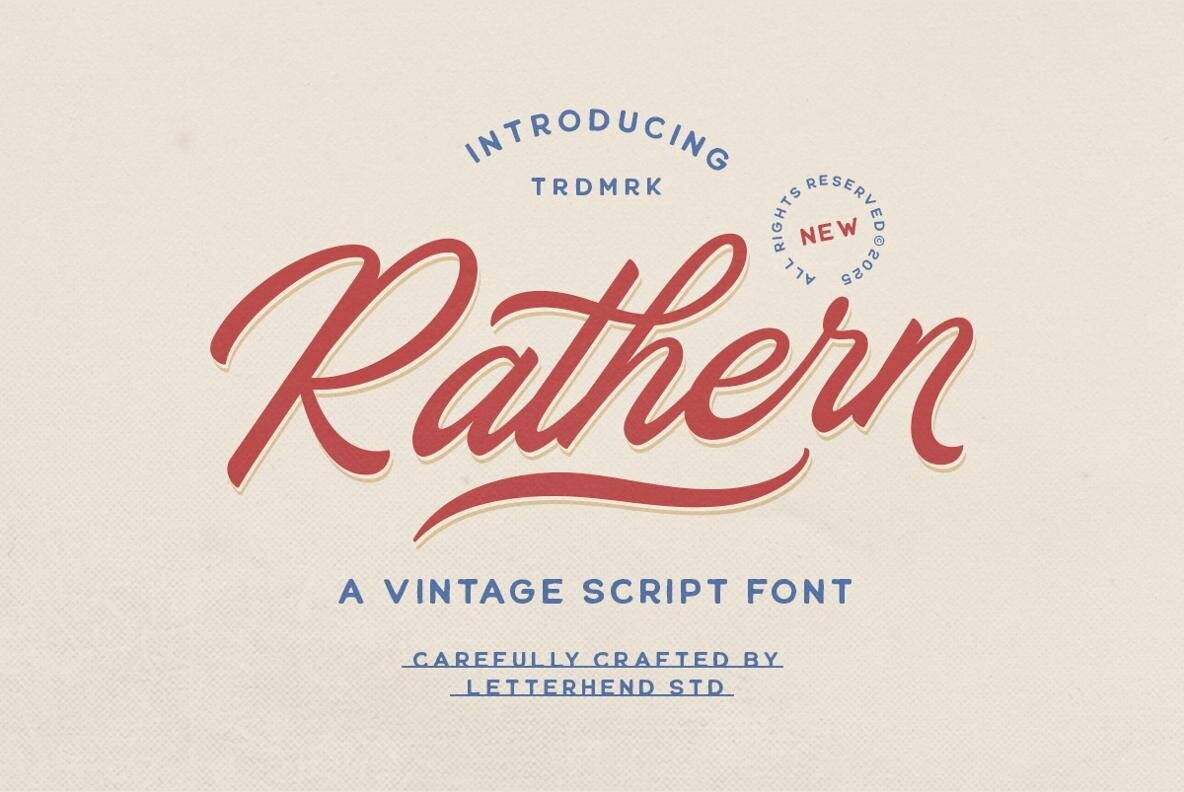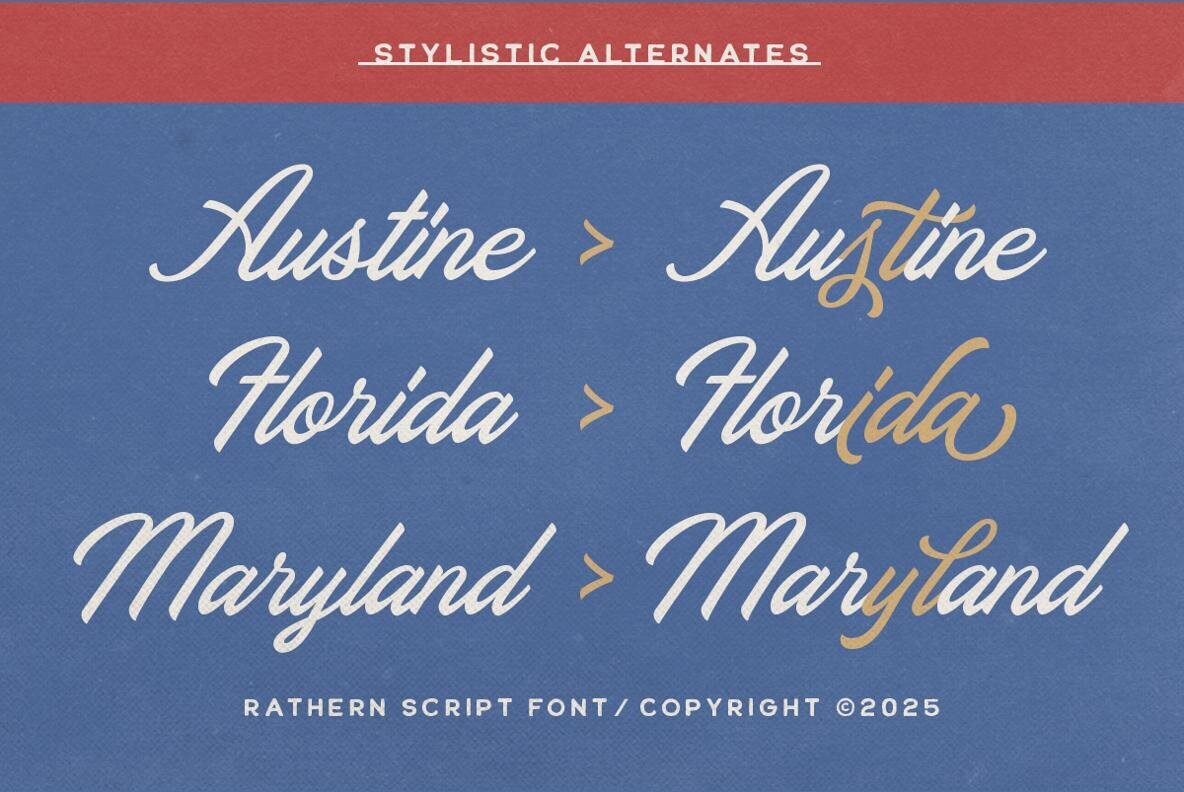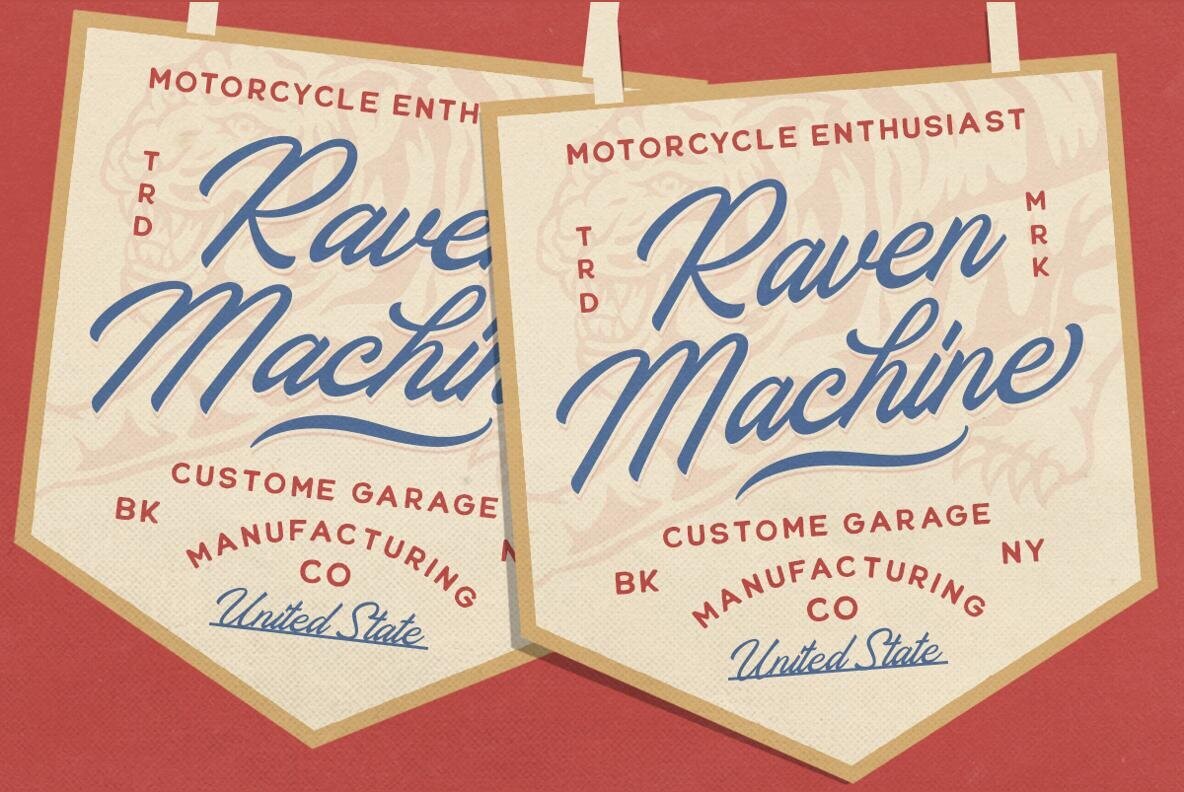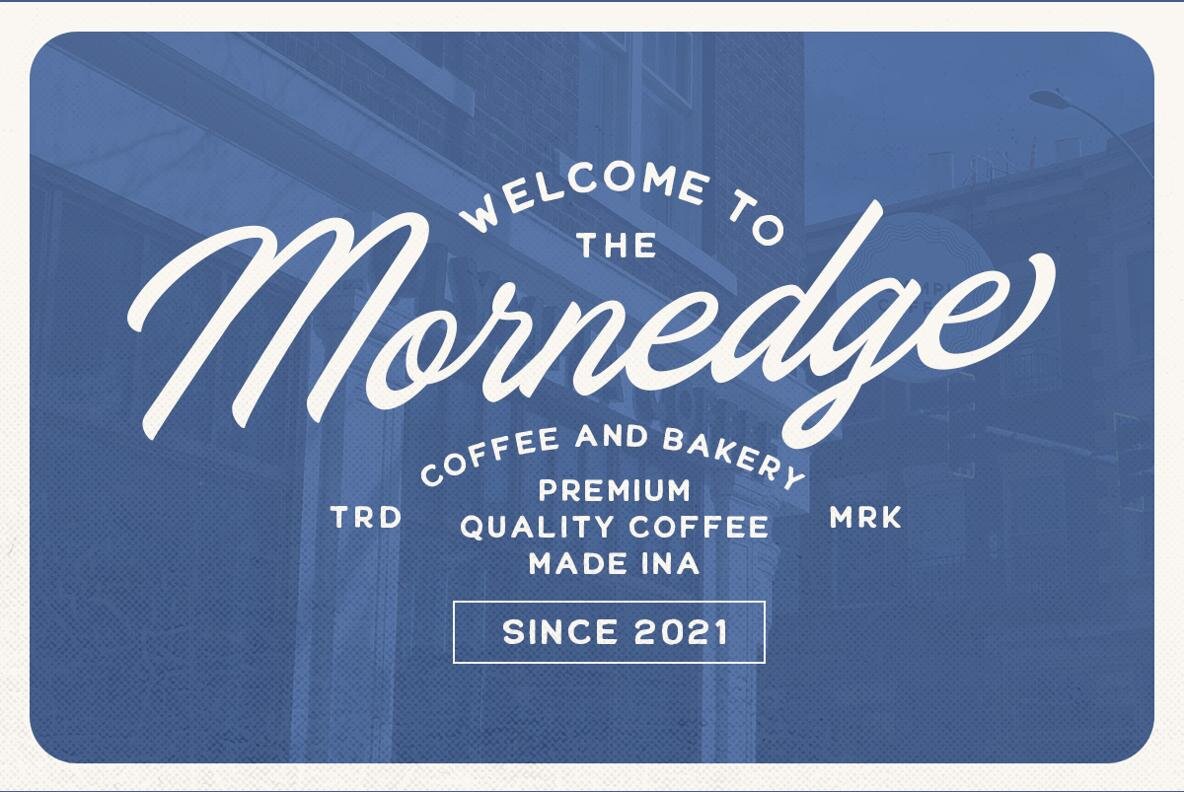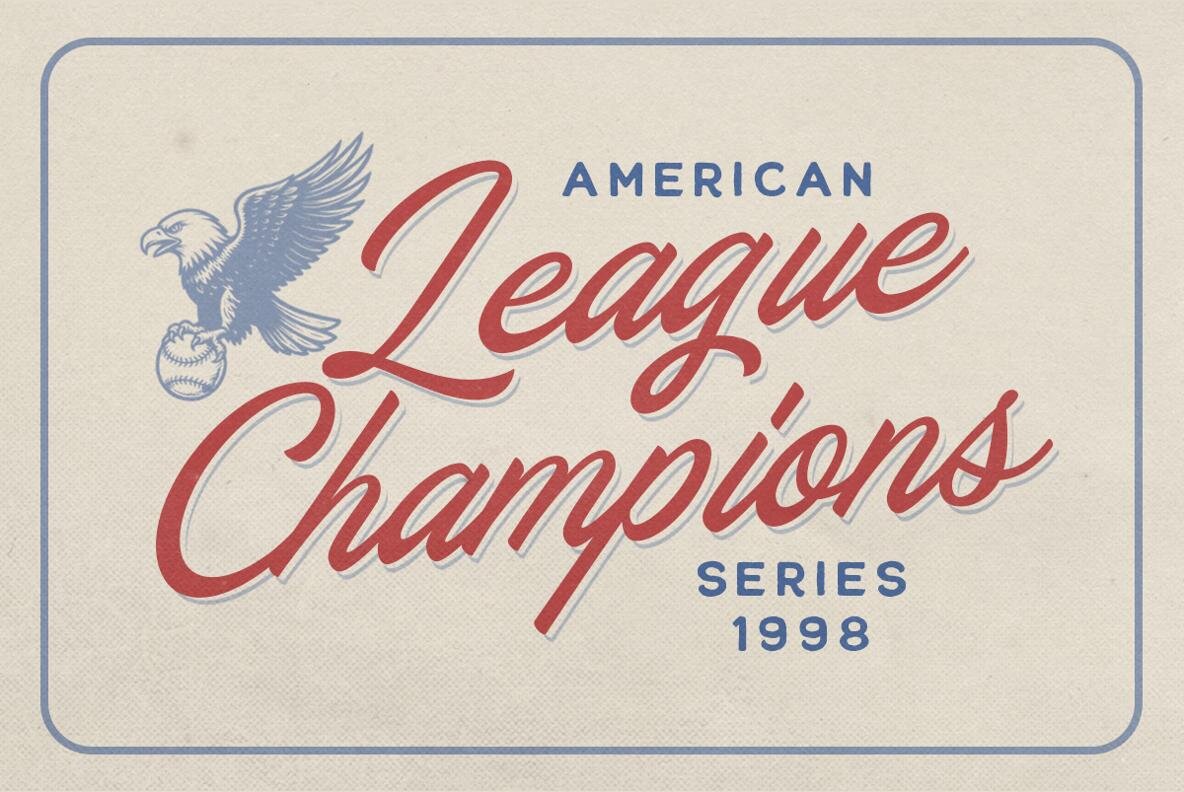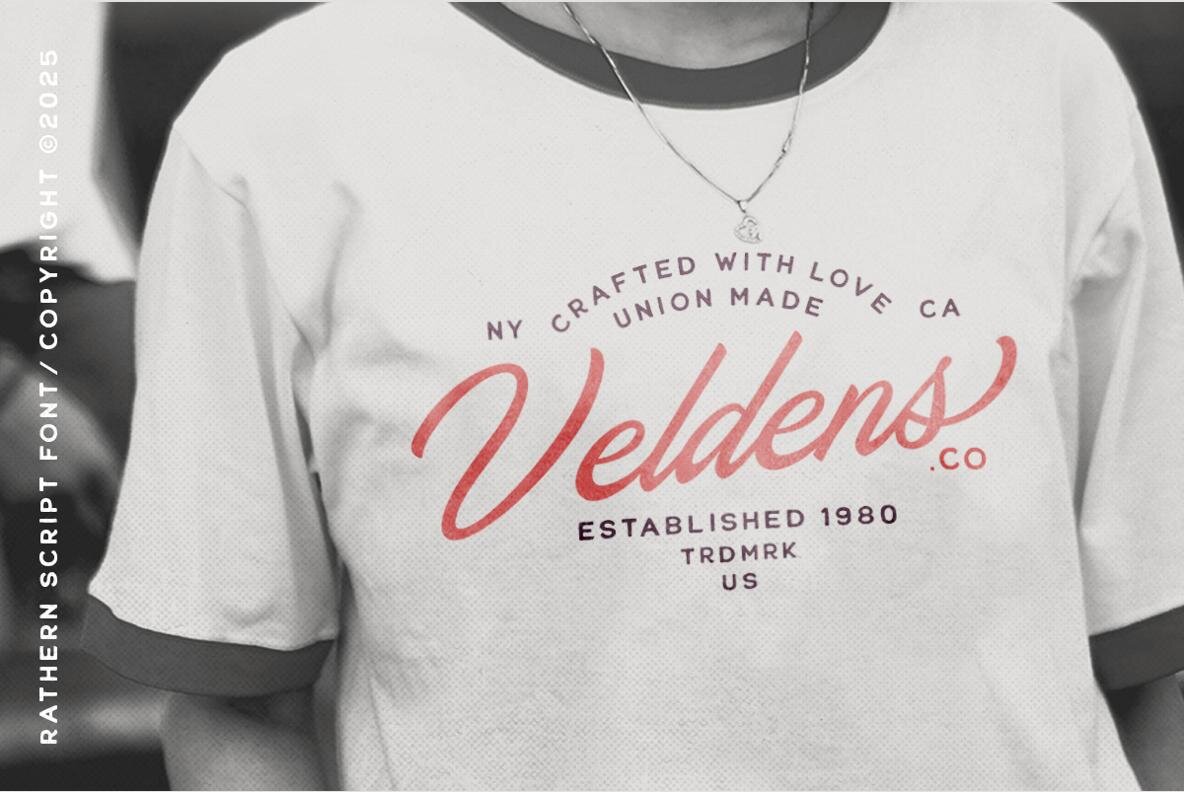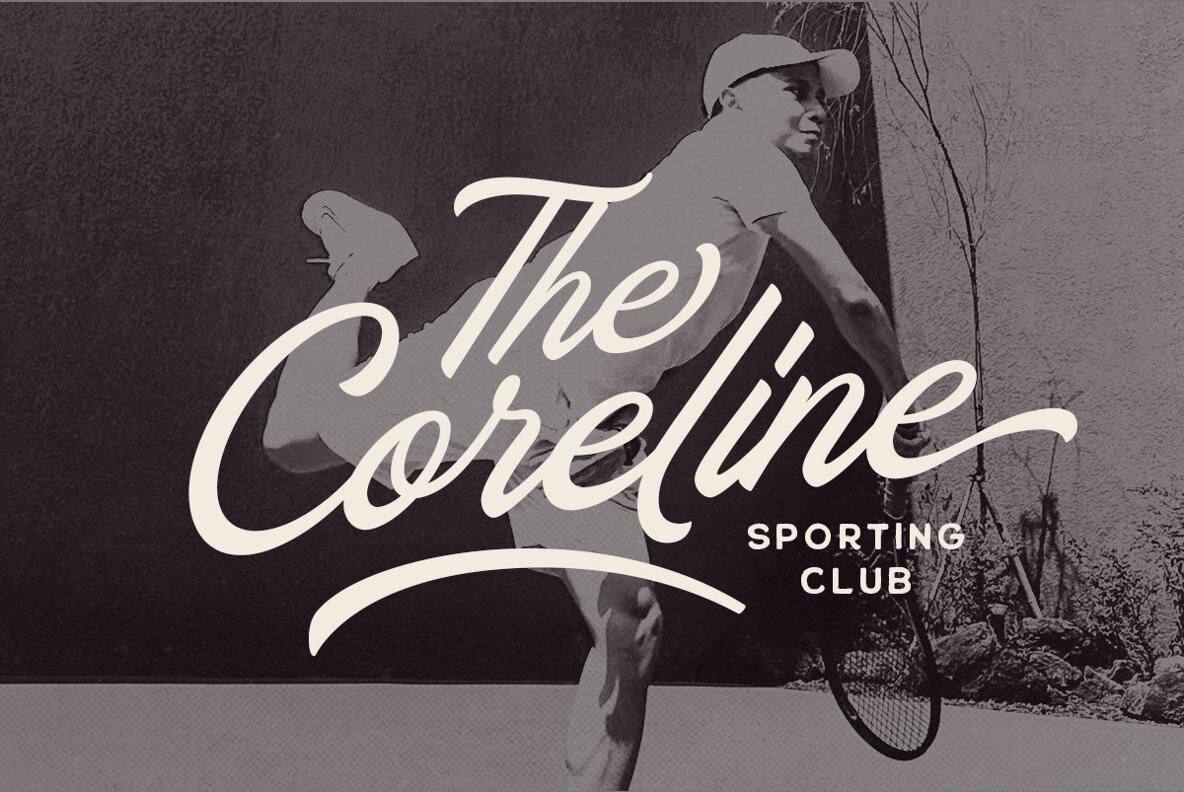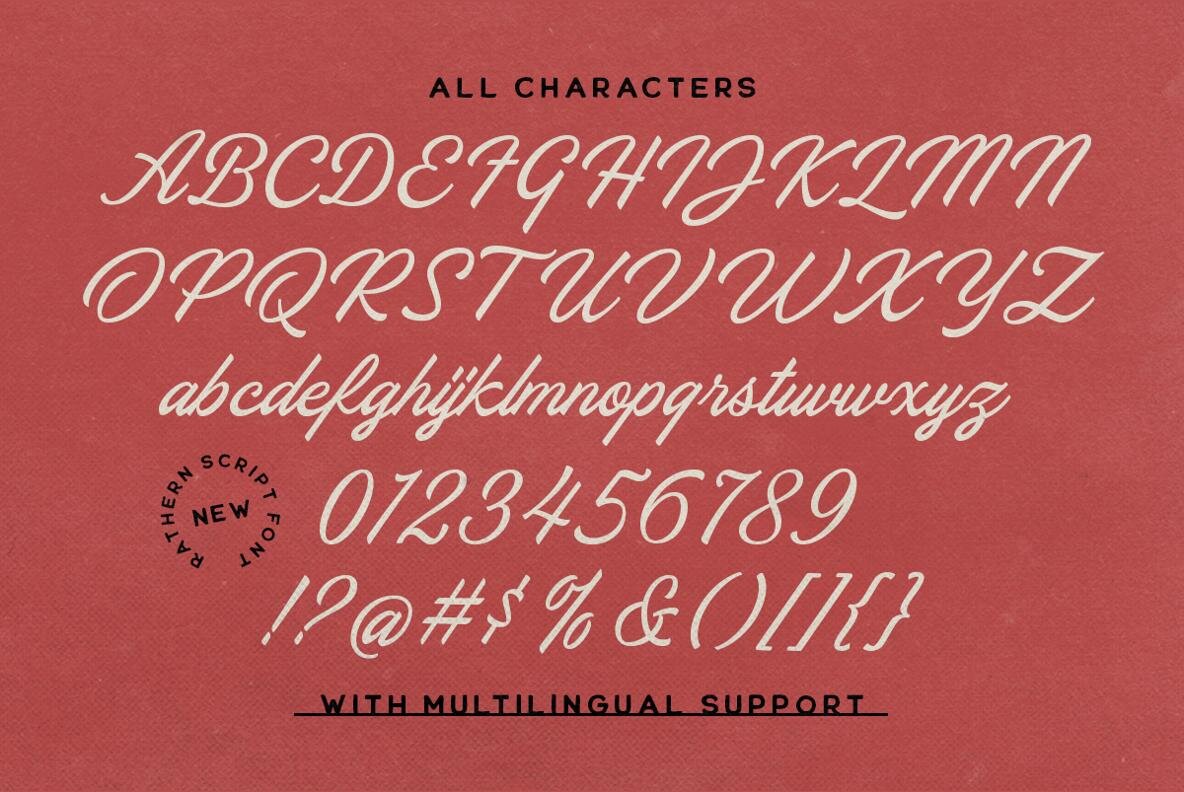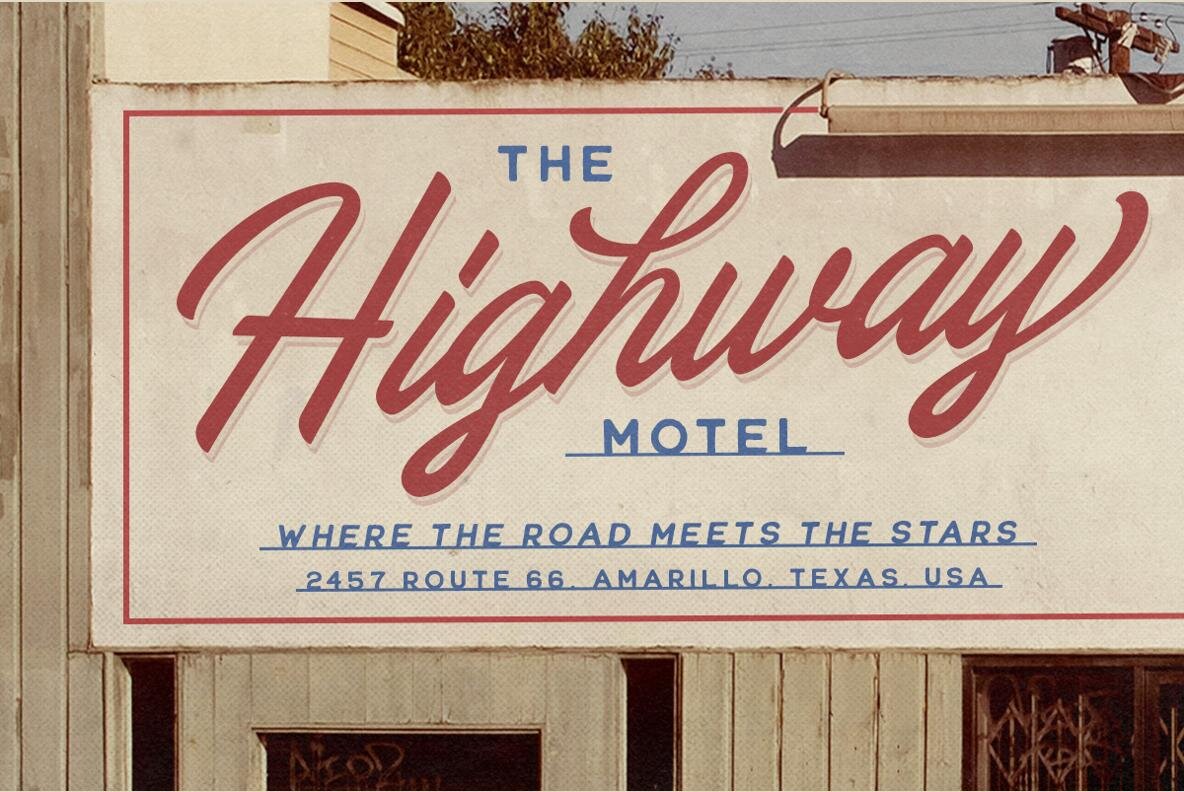
Rathern Vintage Font
Rathern Regular
Rathern captures the essence of the golden era of sign painting with its vintage script design. Blending bold curves with an elegant flow, this font brings the charm of hand-painted lettering to modern digital design. Its smooth strokes and subtle retro details make it a perfect choice for logos, packaging, posters, and branding projects seeking a nostalgic yet sophisticated appeal. Rathern exudes a confident and stylish presence, delivering a timeless vibe that feels both classic and full of character.Rathern: Vintage Script Evoking Hand-Painted Elegance